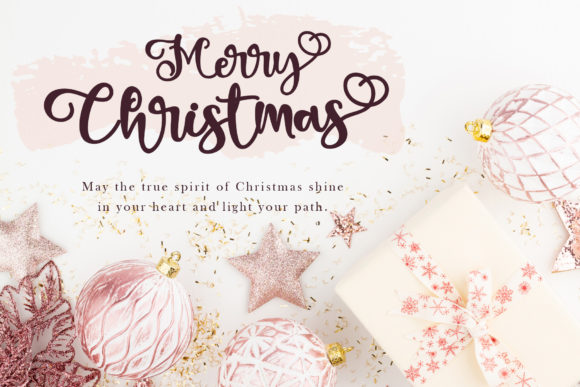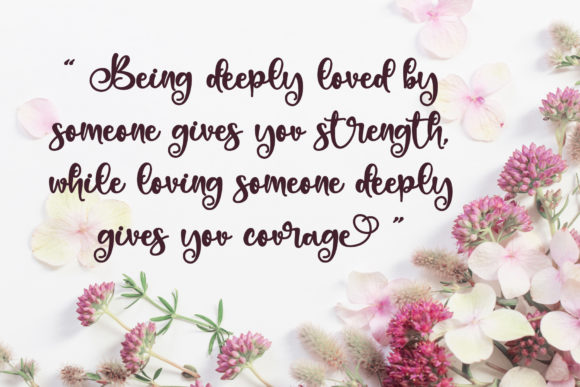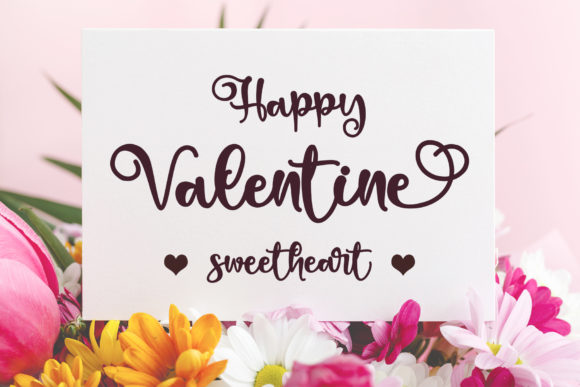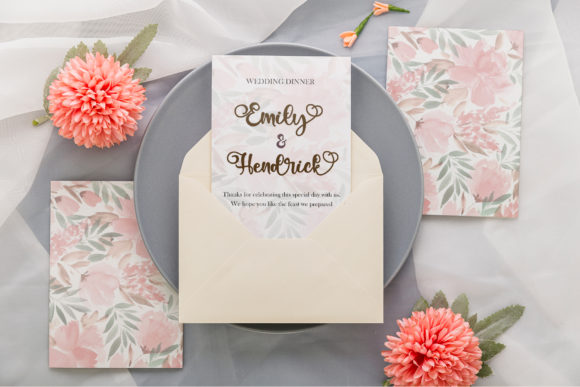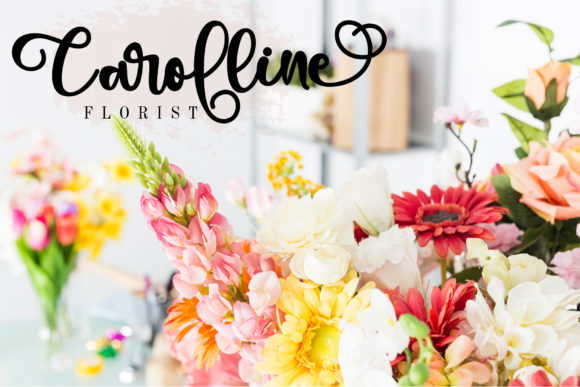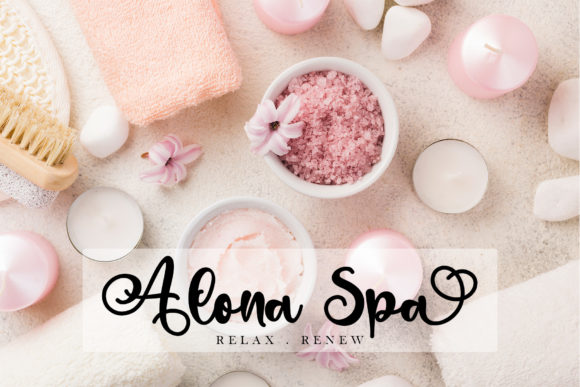
Bellissa Font: Elevate Your Designs with a Touch of Modern Elegance
In the world of typography, a font can make all the difference in the aesthetic and feel of a design. For those seeking a blend of modernity and romance, the Bellissa Font stands out as an exceptional choice. This beautifully crafted handwritten font is designed with an incredibly modern feel, making it perfect for a wide range of creative projects. Whether you’re a designer looking to add a personal touch to your work or a crafter aiming to create something unique, Bellissa is sure to exceed your expectations.
What Makes Bellissa Special?
Bellissa is not just any ordinary font. It is PUA (Private Use Area) encoded, which means that accessing all the glyphs and swashes is incredibly easy. This feature is particularly beneficial for designers and crafters who want to add intricate details and personal touches to their work without the hassle of complicated font management. With Bellissa, you have the freedom to explore a wide range of creative possibilities, from elegant holiday-themed greeting cards to bespoke crafting projects that require a romantic flair.
Ideal for Holiday-Themed Greeting Cards
The holiday season is a time for joy, love, and personalized gestures. With Bellissa, you can create stunning holiday-themed greeting cards that stand out from the crowd. The font’s modern yet elegant feel ensures that your cards exude warmth and sophistication, making them perfect for Christmas, Valentine’s Day, or any other special occasion. The ease of use, thanks to PUA encoding, allows you to focus on the creative aspect, experimenting with different swashes and glyphs to match the tone of your message.
Perfect for Crafting Projects
Crafting is all about adding a personal touch to your projects, and typography plays a crucial role in this. Bellissa, with its romantic and modern appeal, is ideal for any crafting project that requires a touch of elegance. Whether you’re working on handmade cards, scrapbooking, or creating custom vinyl decals, this font can elevate your work to a new level. The versatility of Bellissa means you can use it for a variety of crafting ideas, from DIY home decor to personalized gifts.
Why Choose Bellissa?
- Modern Feel: Bellissa boasts a contemporary design that will make your projects look fresh and current.
- PUA Encoded: Easy access to all glyphs and swashes, making it simple to customize your designs.
- Romantic Touch: Adds an elegant and romantic feel to your work, perfect for projects that require a personal touch.
- Versatile: Suitable for a wide range of projects, from digital designs to handmade crafts.
Tips for Using Bellissa Effectively
To make the most of Bellissa, consider the following tips:
- Experiment with Swashes: Don’t be afraid to try out different swashes and glyphs to add unique touches to your designs.
- Mix and Match: Combine Bellissa with other fonts for interesting contrasts, or use it as a standalone font for a cohesive look.
- Play with Sizes: Experiment with different font sizes to create visual hierarchy and emphasize certain parts of your design.
Bellissa Font is a versatile and elegant addition to any designer’s or crafter’s toolkit. Its modern feel, combined with the ease of use provided by PUA encoding, makes it an excellent choice for a wide range of projects. Whether you’re creating holiday-themed greeting cards or crafting something unique, Bellissa can help you achieve a professional and romantic look with ease. So, why settle for ordinary when you can add a touch of modern elegance to your work? Explore the creative possibilities with Bellissa Font today.